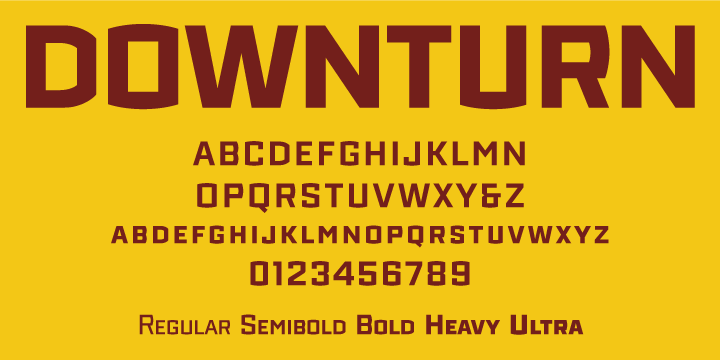
Downturn was most directly inspired by letters painted on the wall of an old medical warehouse in Washington, D.C.. Other inspirations include lettering on manhole covers, metal signs and machinery in New York and DC.
Its quirky letterforms and deliberately uneven color reflect the typographic naïveté of signpainters and engineers more interested in impact than consistency.
Chunky, in-your-face letters make Downturn appropriate for posters, packaging, headlines and other places you need a big impact.